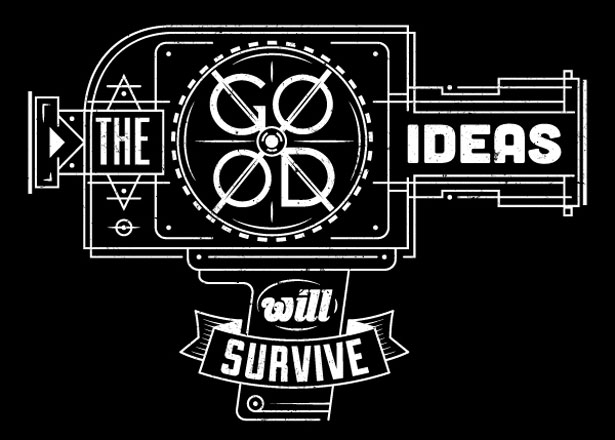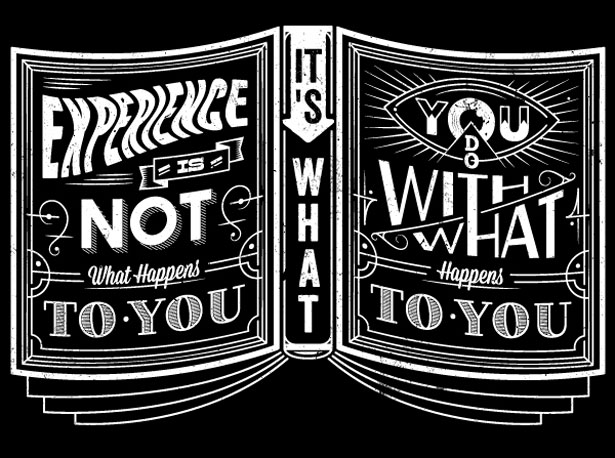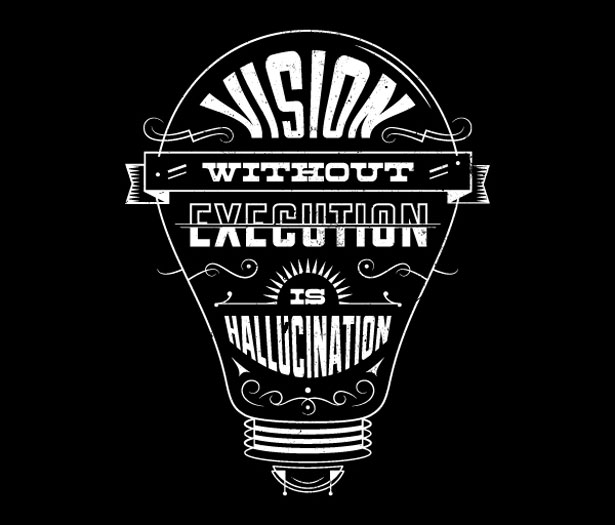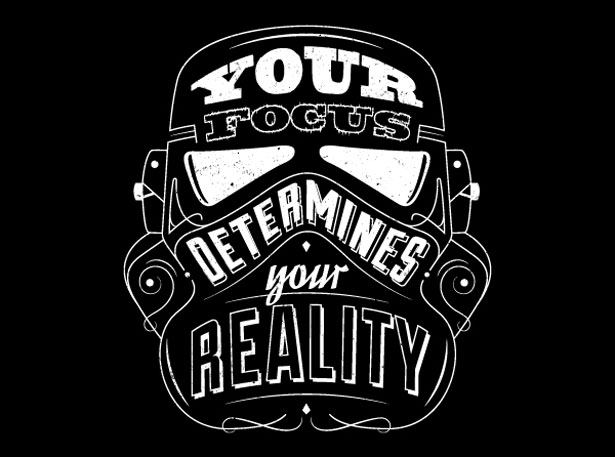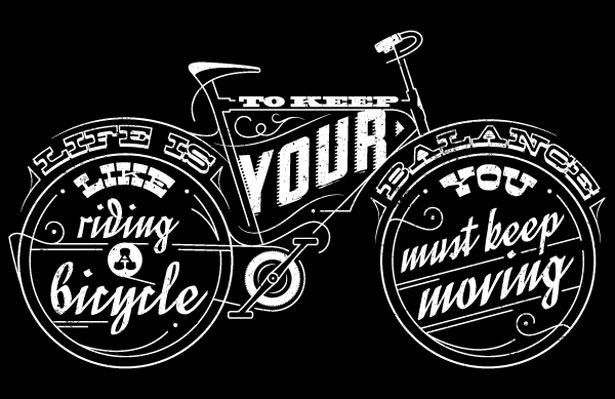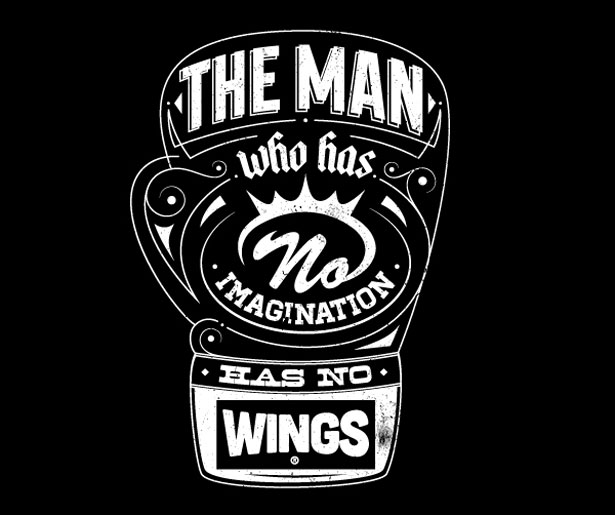
Oldschool is still cool
These are some lovely illustrations designed by Emiliano Aranguren bringing some wise quotes from cool historic icons again on the scene. That oldschool and even American usage of handwritten type grant an exceptional style of work and push away the boredom of the common solutions of typographic quotes who usually stand in the middle of a white or black paper, in huge points size in Helvetica bold. Check out more of his work here.
Emiliano Aranguren